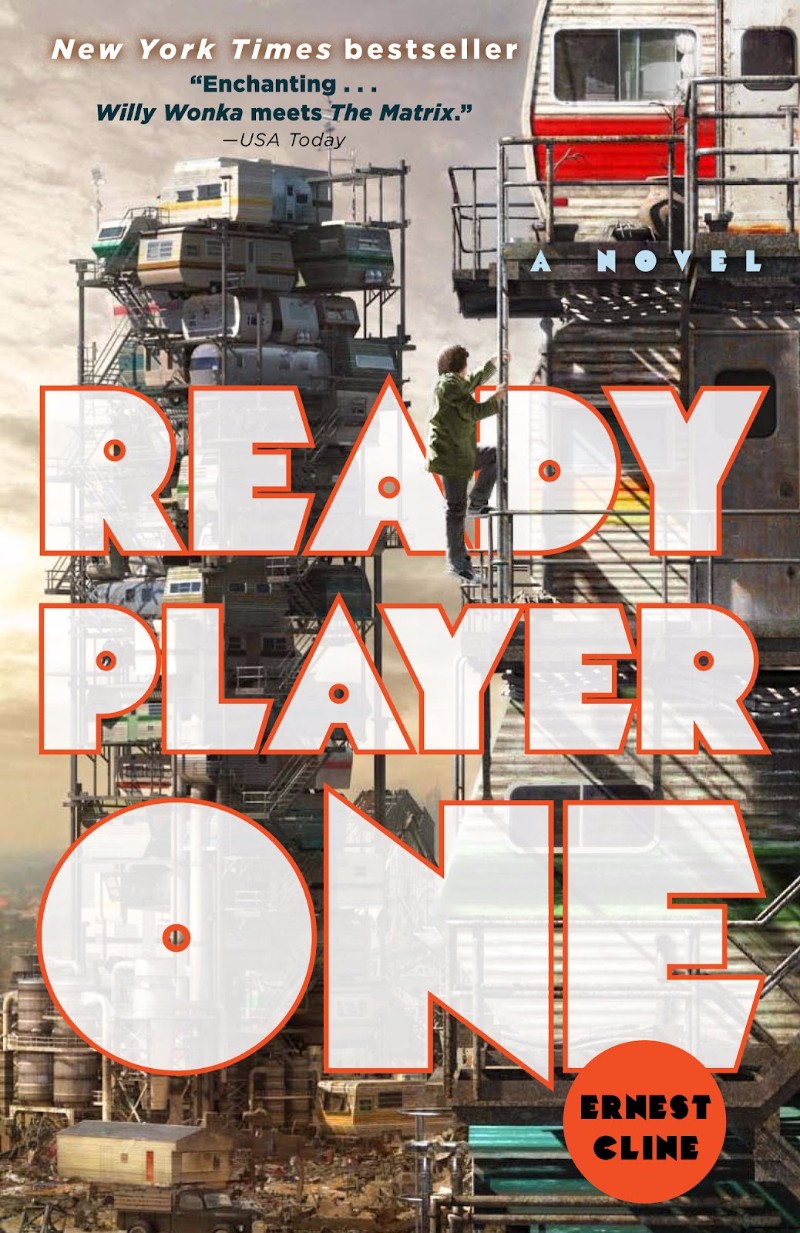
Ready Player One Font
BookReady Player One is a science fiction novel written by Ernest Cline in 2011. It is set in a dystopian future where people spend most of their time in a virtual reality world called the OASIS. The story follows protagonist Wade Watts as he searches for an Easter egg hidden in the OASIS by its creator, James Halliday.
Mekon Outline is the font used for the book's title. Mekon was created by Jonathan Hill, a heavy-weighted display font that is now offered in Regular, Block, Outline, and Gradient in addition to 3 alternative styles. Steven Spielberg's adaptation of the book as a movie debuted on March 29, 2018. To replicate the title writing on the movie poster, Fran Fernández designed a font called Ready Player One, which you can download for free in the Fonts Used Section.